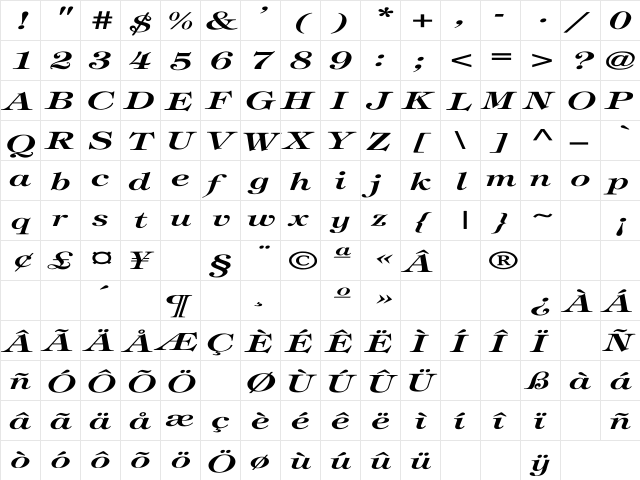
Tiffany-BoldItalic Ex Regular Font Preview
Design Context for Tiffany-BoldItalic Ex Typeface
Tiffany-BoldItalic Ex takes a measured approach to typography — its balanced proportions and neutral character make it a reliable workhorse for both digital and print work. The dynamic lean of this cut emphasises speed and emphasis in any layout. The heavy weight commands attention and anchors typographic hierarchies.
Pro Tip: Try Tiffany-BoldItalic Ex for annotation and caption copy alongside an upright companion — the contrast in angle creates a dynamic but ordered typographic system.